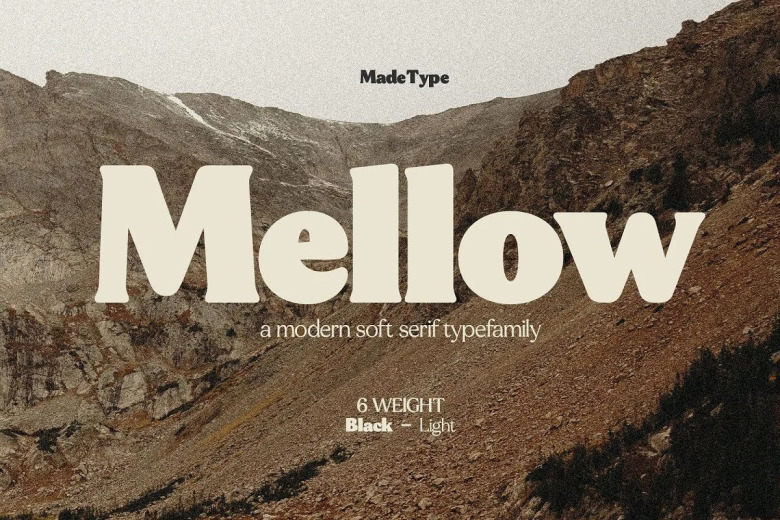
Mellow Serif Font
If you’re looking for a classic typeface to attract your audiences or customers then we’ve got the font for you! Mellow is bold and classic serif font with elegant curves. This font is perfect for branding, logo design, header text, poster and many other.